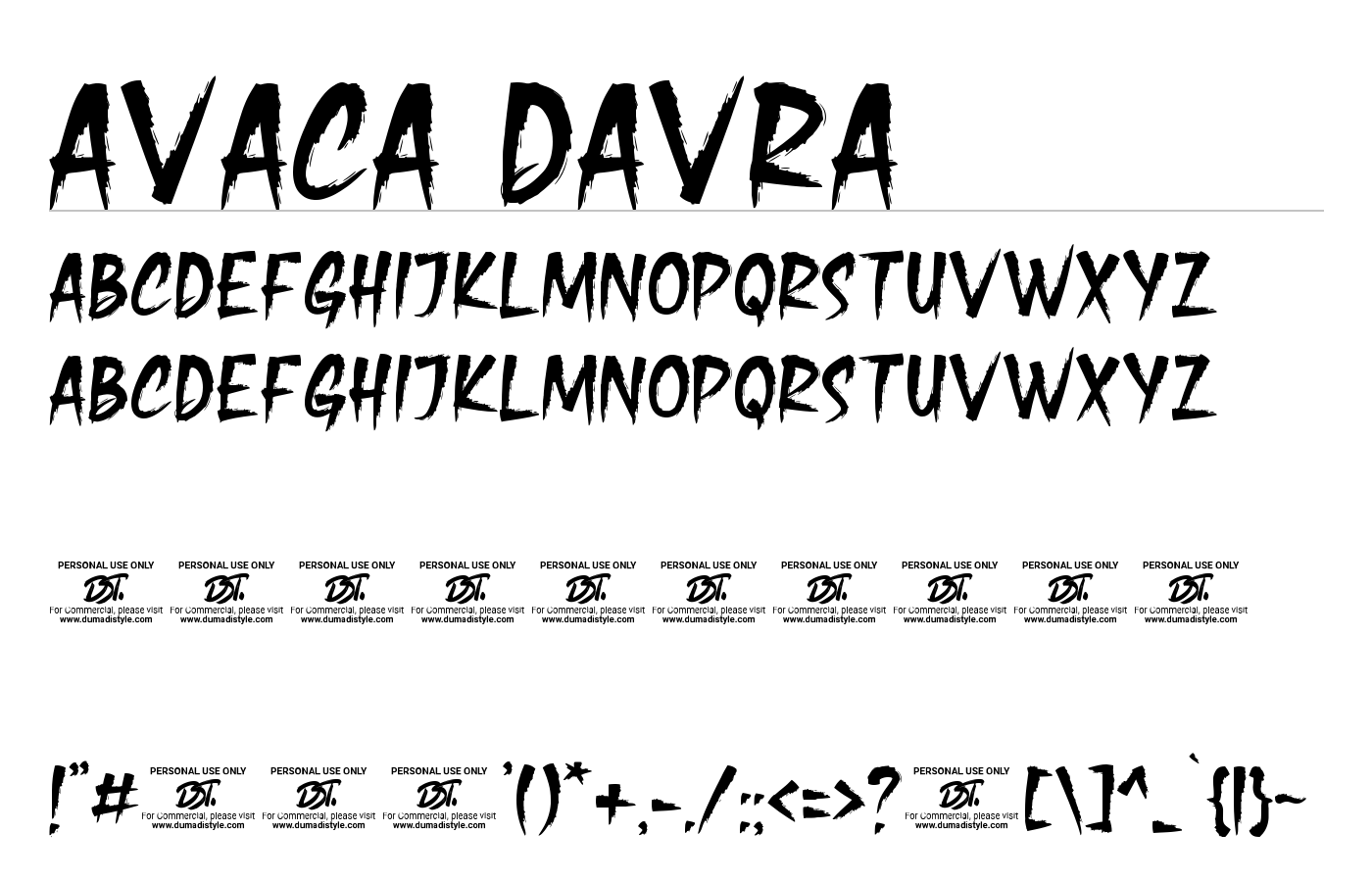
Avaca Davra is a bold, expressive handwritten display font with a rough, brushstroke texture that gives it a dynamic and energetic feel. Its irregular edges and tall, condensed letterforms make it perfect for creating eye-catching headlines, posters, and branding that aim to convey creativity and a casual, artistic vibe. This font works especially well for projects needing a strong, informal personality that stands out with a handcrafted, lively touch.
Avaca Davra Font
About Avaca Davra Font
| Font family | Avaca Davra Font |
| Languages supported | Latin, Symbols, Greek, Thai |
| Designer | Toni Dzulham |